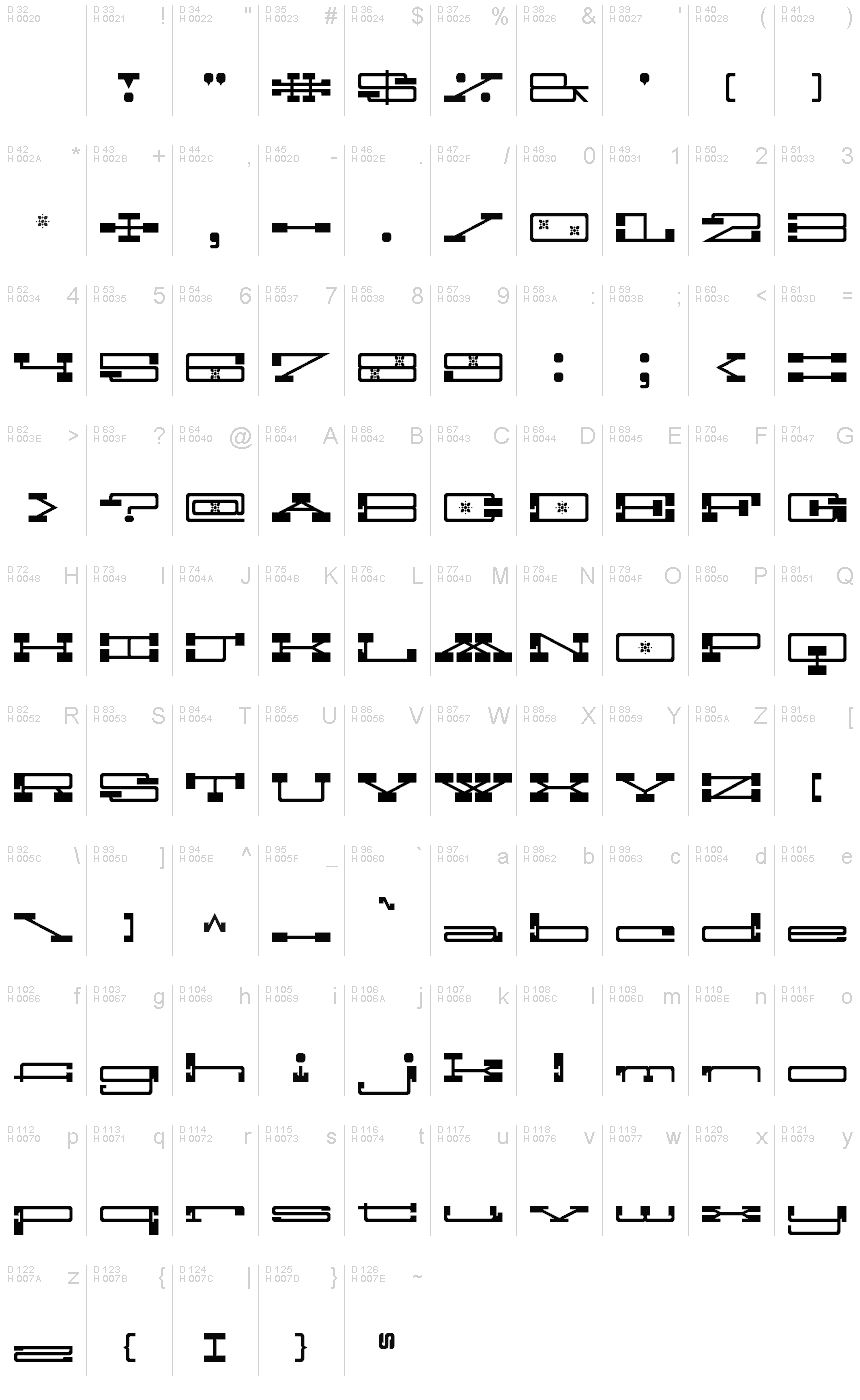
Maximum Hoedown Regular
Designer description: Version 1.4
Experimental slab-serif. The added height from the serifs is quantized so that the serifs, rather than the normal lines, determine a glyph's geometry.
It reminds me of the Wild West and the old cartoon "The Jetsons" at the same time. It uses two kinds of serifs: normal slabs and "hangover" serifs. The hangovers are the ones that look like overhangs. Is there another name for them? I don't know.
Despite what you may have heard, a "hoedown" is just a party.